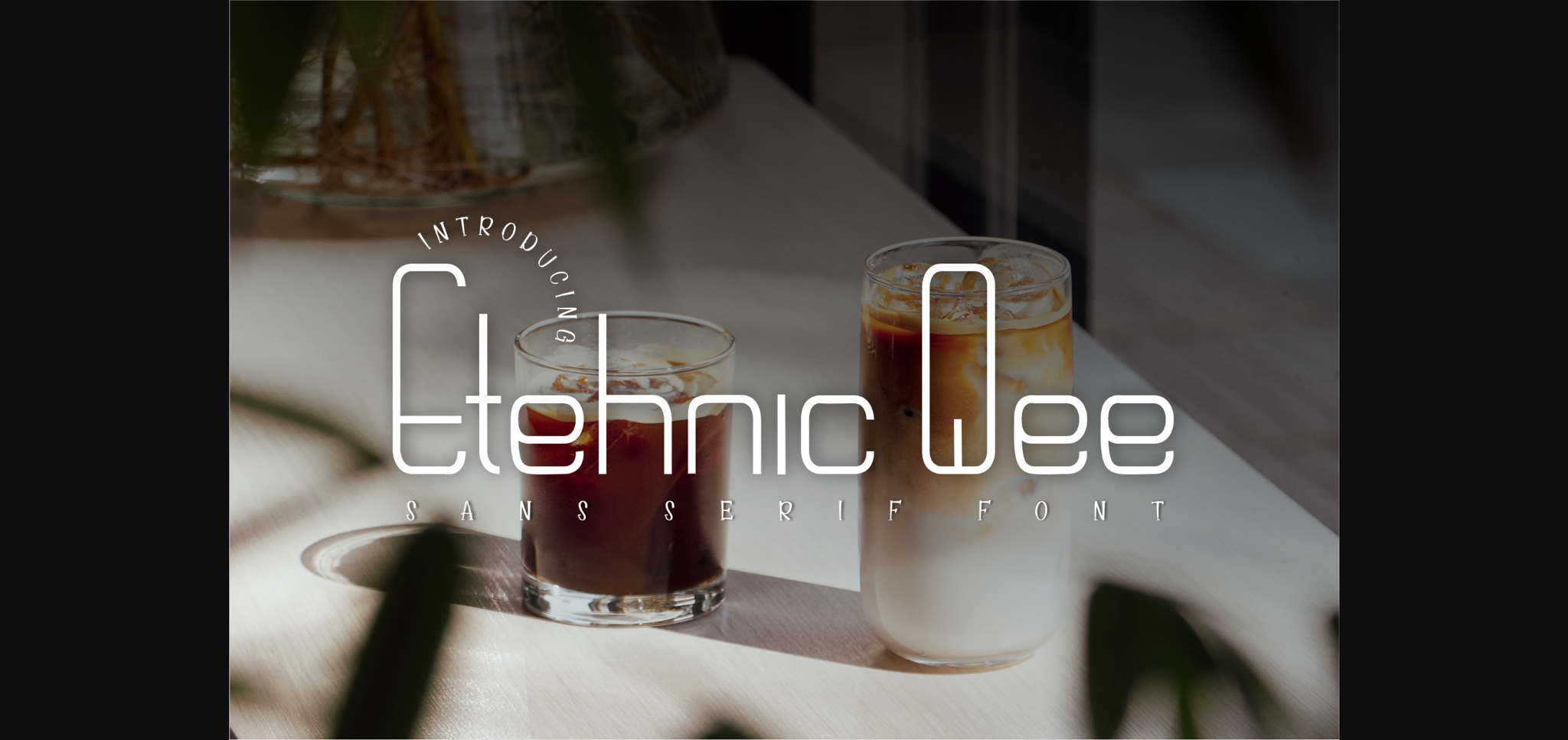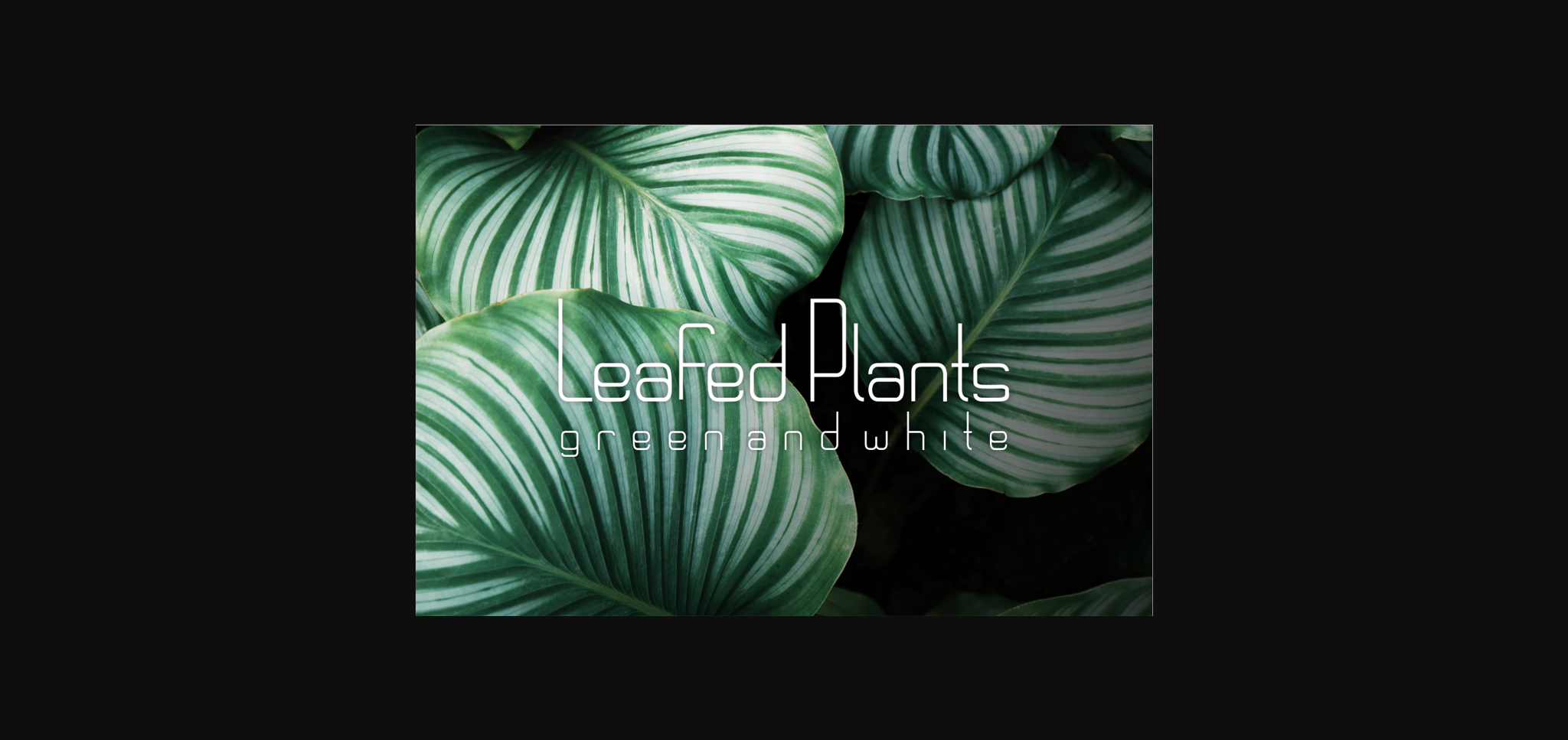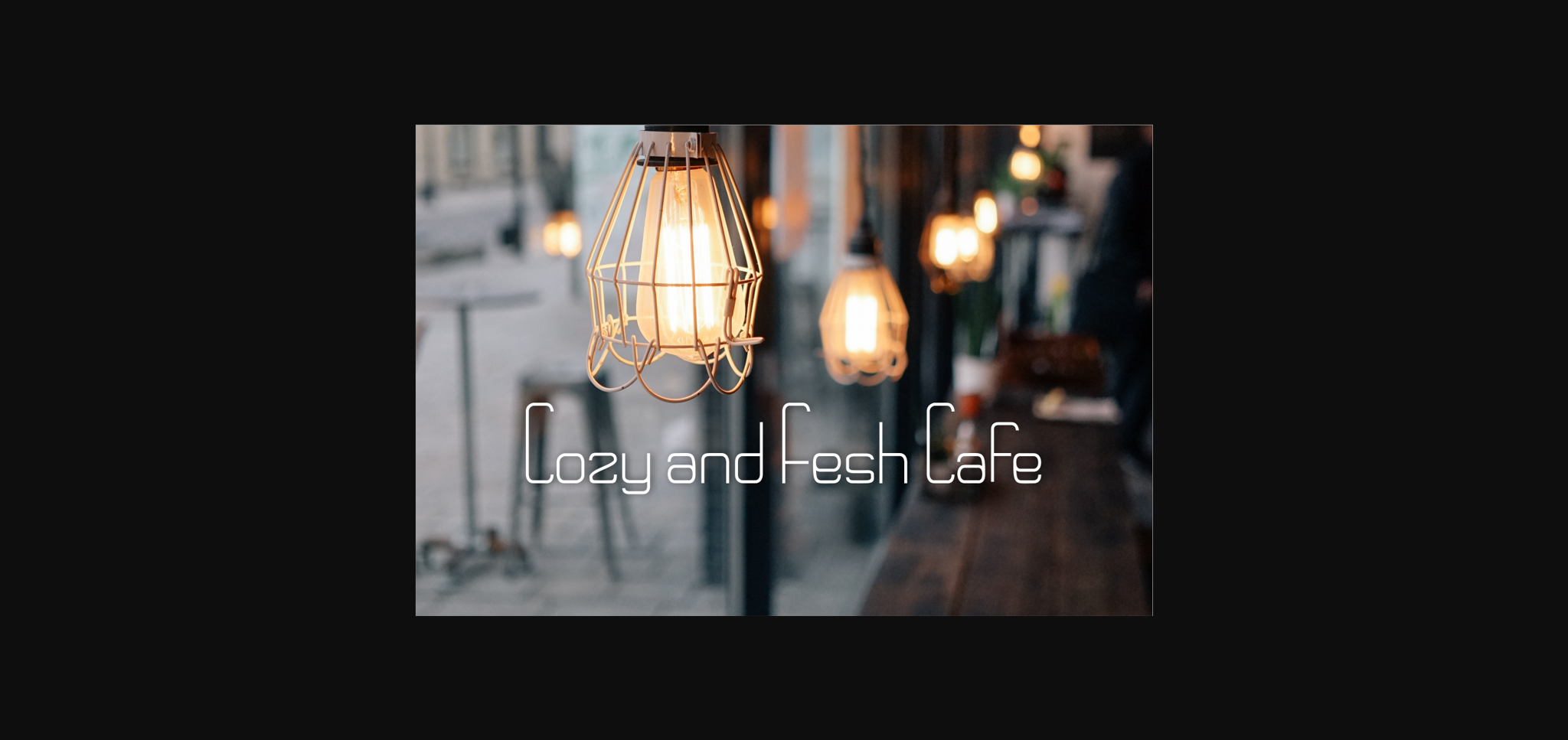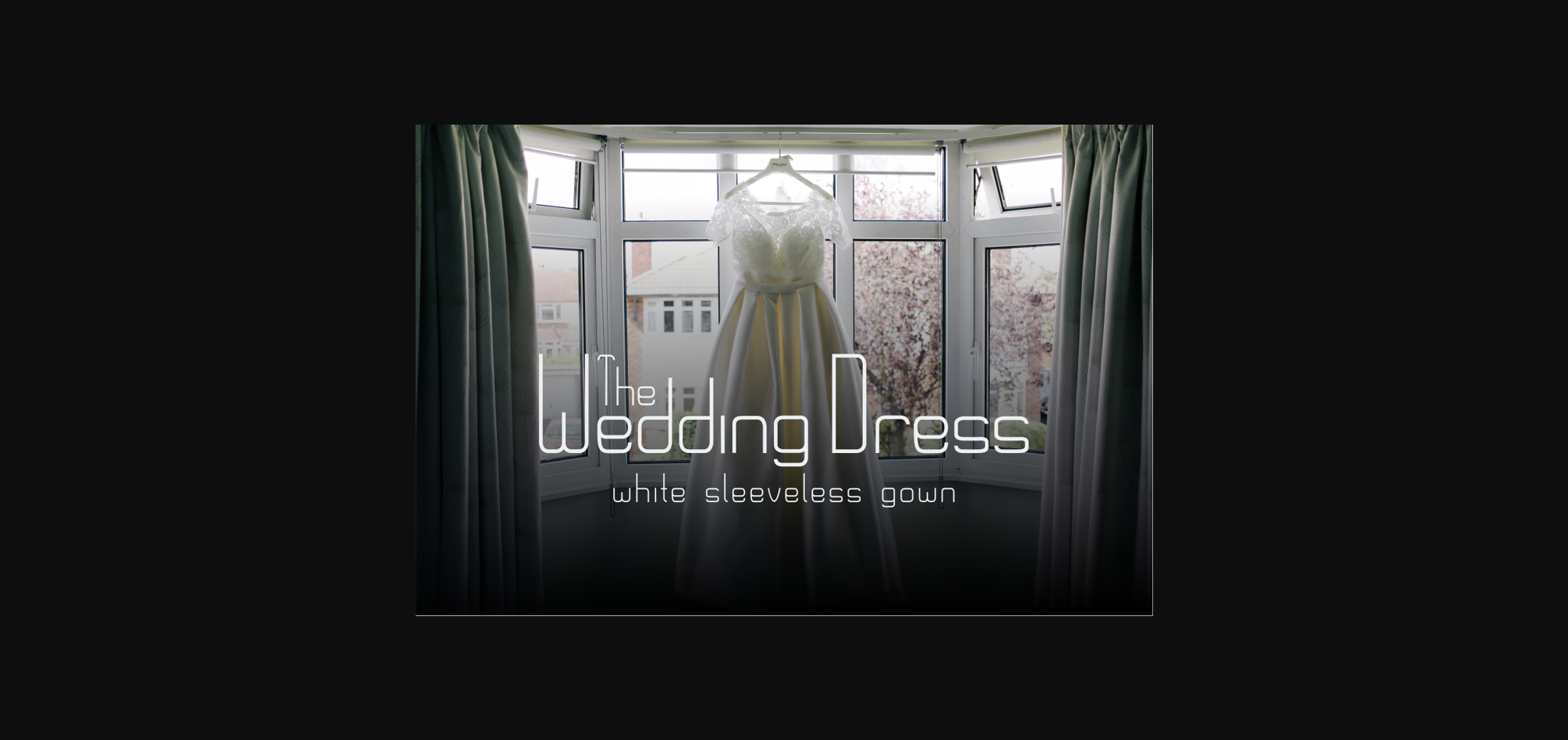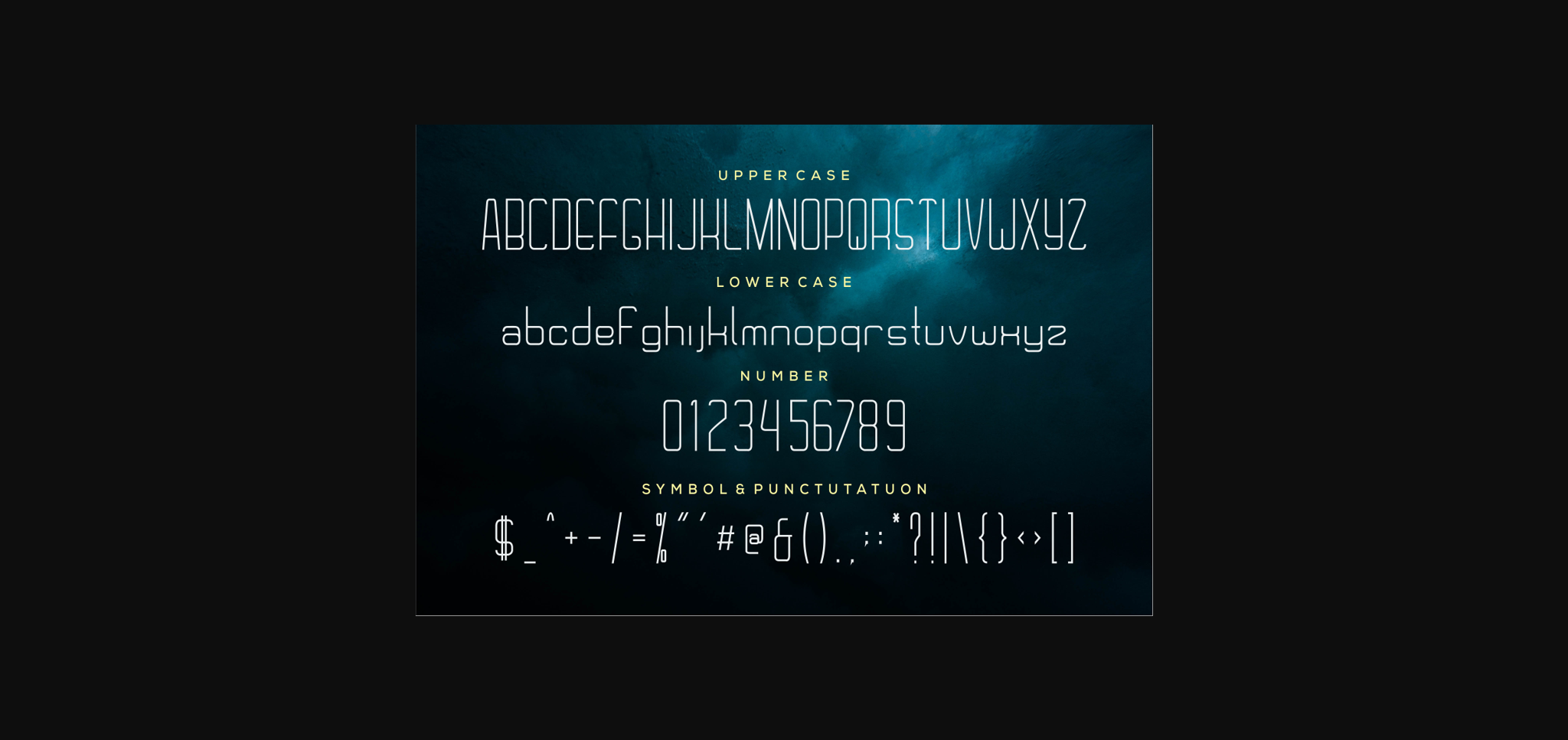
Etehnic Qee Font
About Etehnic Qee Font
Etehnic Qee is a font created for creative needs such as weddings, displays, cafes, and others. We made this with its own uniqueness which we think is very good and interesting. With a thin and tall font type, we think this will attract the presentation of the product you are conveying.